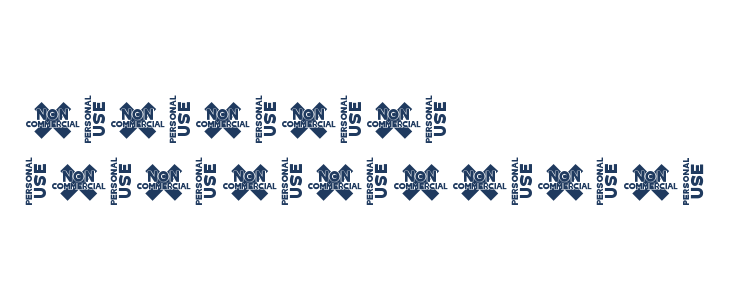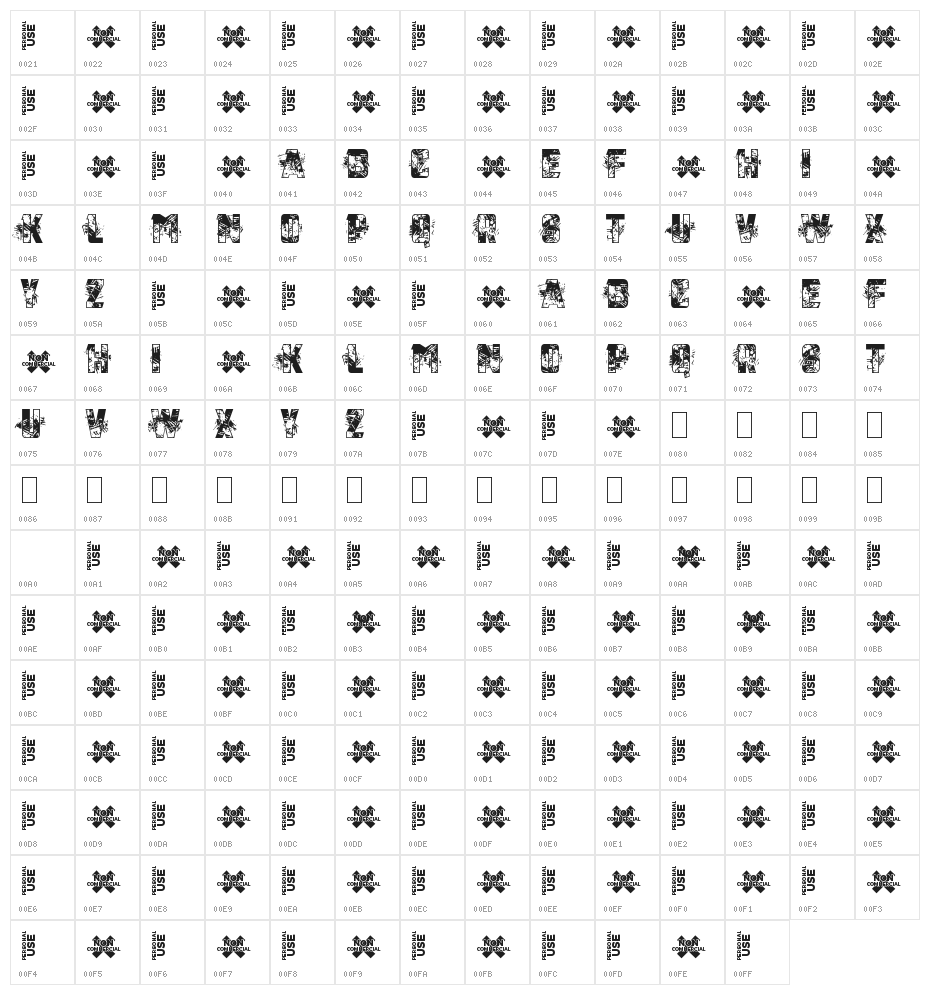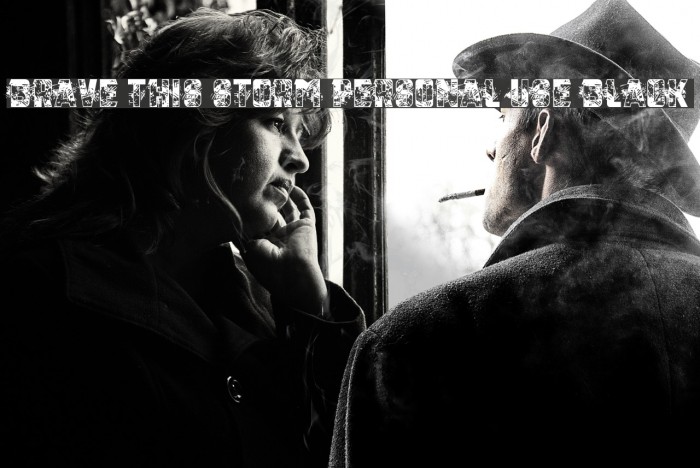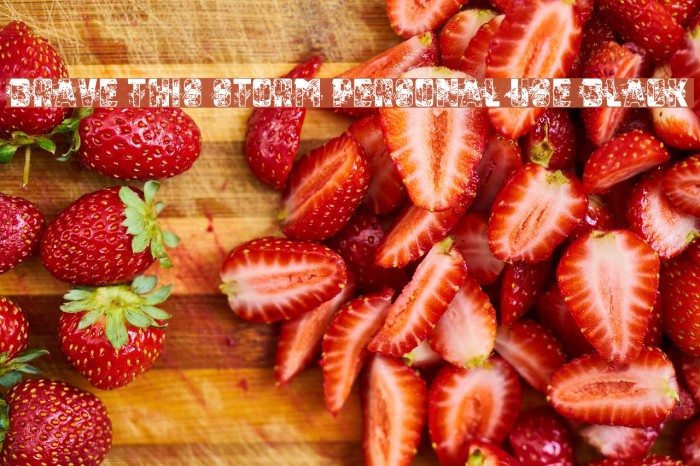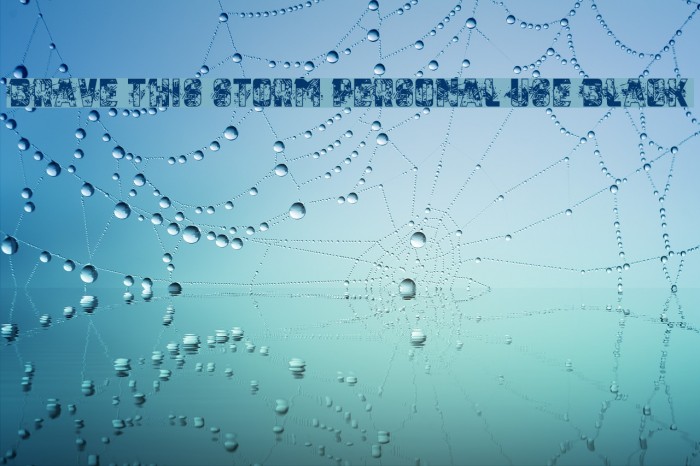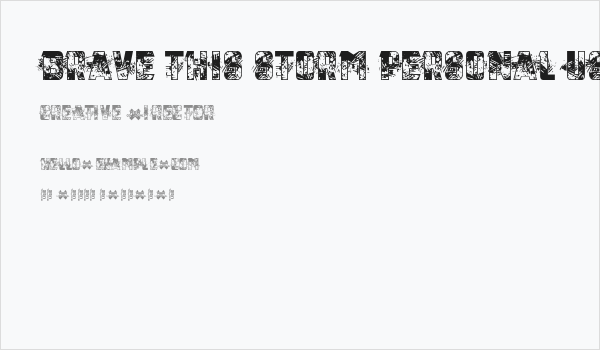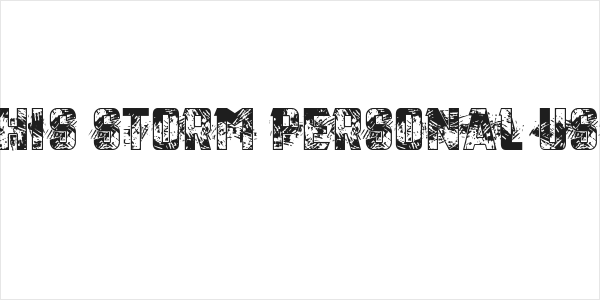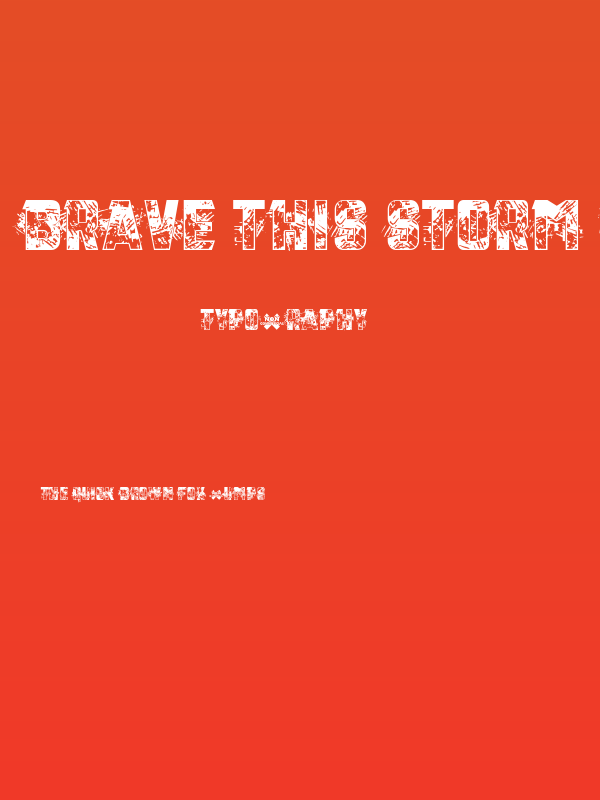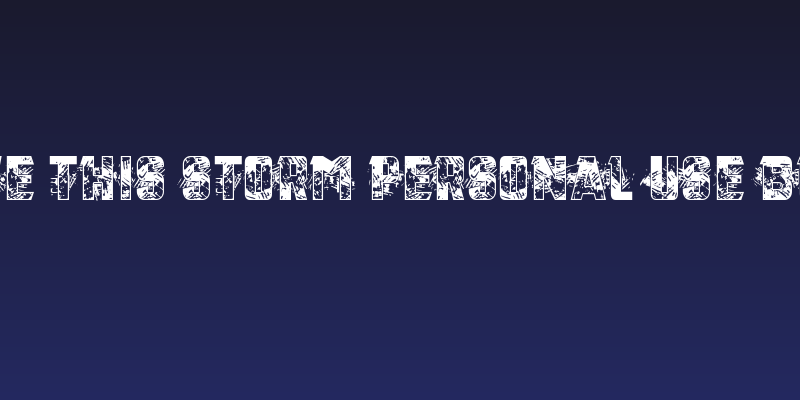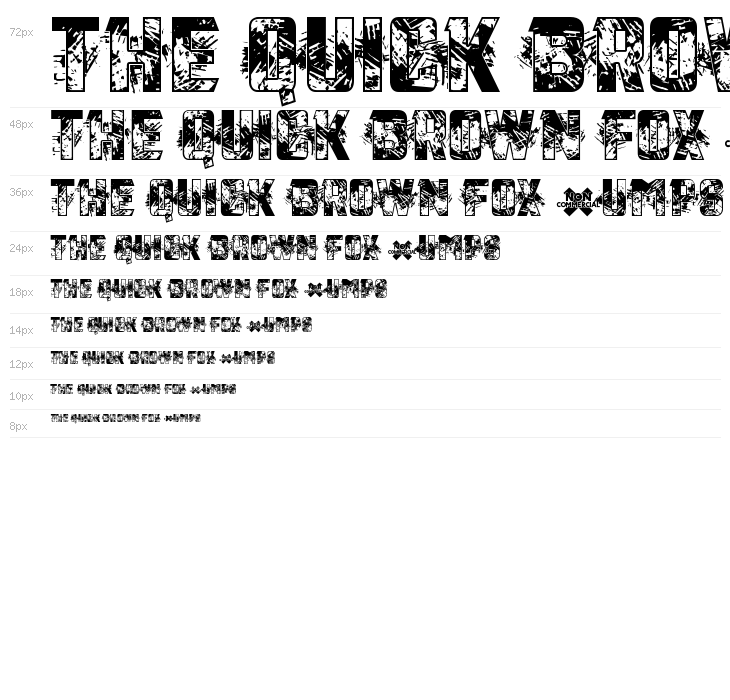
Brave this Storm Personal USE Black Font
Brave this Storm Personal USE Black Description
This font features a bold, distressed style with a grunge aesthetic, characterized by rough edges and a textured appearance. The uppercase letters are prominent and impactful, making them suitable for attention-grabbing designs. The font's unique, worn-out look gives it a rebellious and edgy feel, ideal for projects that require a strong visual statement. The characters are well-defined despite the distressed effect, ensuring readability while maintaining a rugged charm. This font is perfect for designs that aim to convey a sense of toughness or urban grit.
| Overall Style | Grunge, Edgy |
| Proposed Projects | Ideal for music album covers, posters, streetwear branding, and edgy event flyers. |